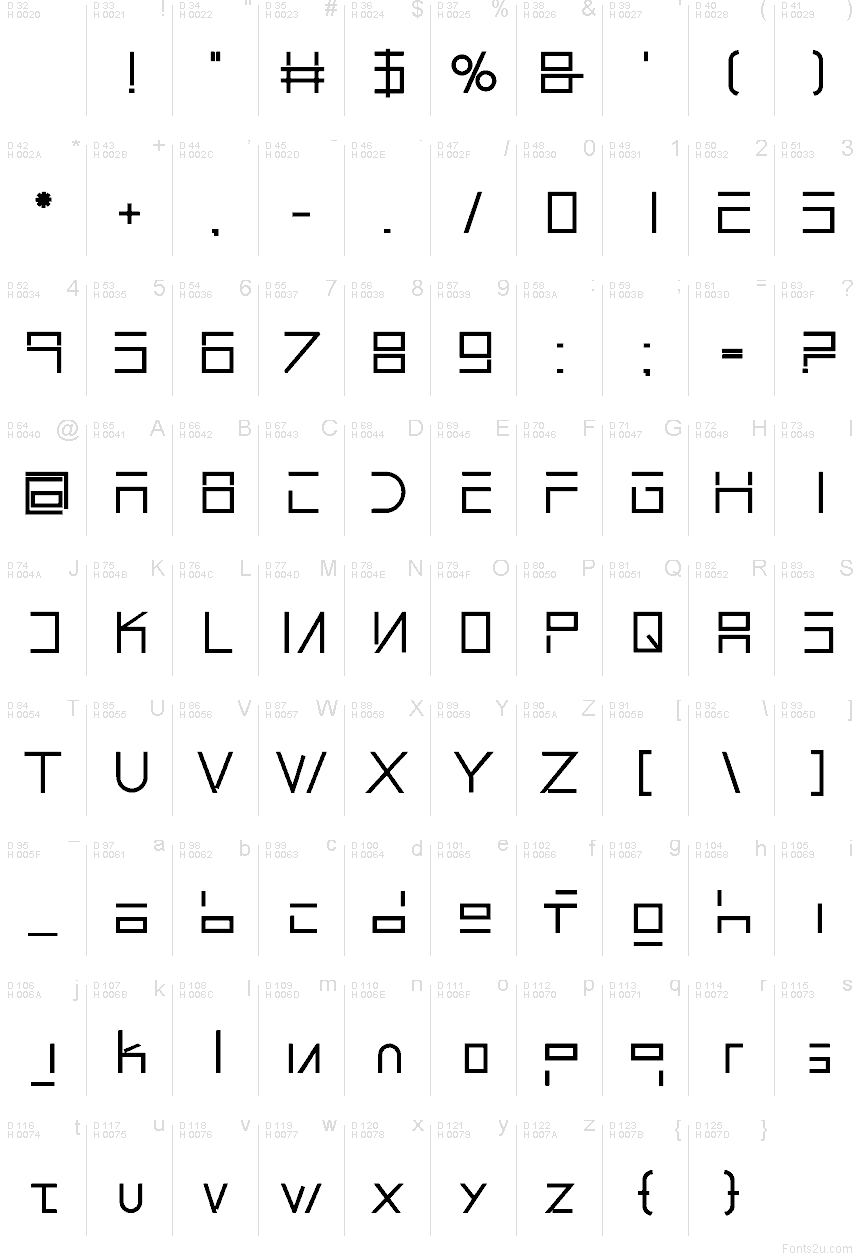
tobminx Medium
Tobminx Medium font by Ffeeaarr is a free techno display typeface that looks like it was drawn with a single pixel-wide laser. Its tall, airy letters and geometric gates give every word a sleek, sci-fi wiring feel, with unexpected bends and open corners that keep it from feeling generic. The Tobminx family’s stripped-down construction makes text look weightless yet sharply engineered, like circuitry traced across a screen.
Using Tobminx Medium, this free font shines on game logos, synthwave or IDM cover art, tech event posters, experimental branding, and futuristic UI mockups. The generous spacing and upright forms hold up especially well at large sizes, where the crisp grids and angular joins can really breathe. Pair this techno typeface with a plain grotesque or monospaced body font to keep layouts readable while letting Tobminx handle the high-impact titles.